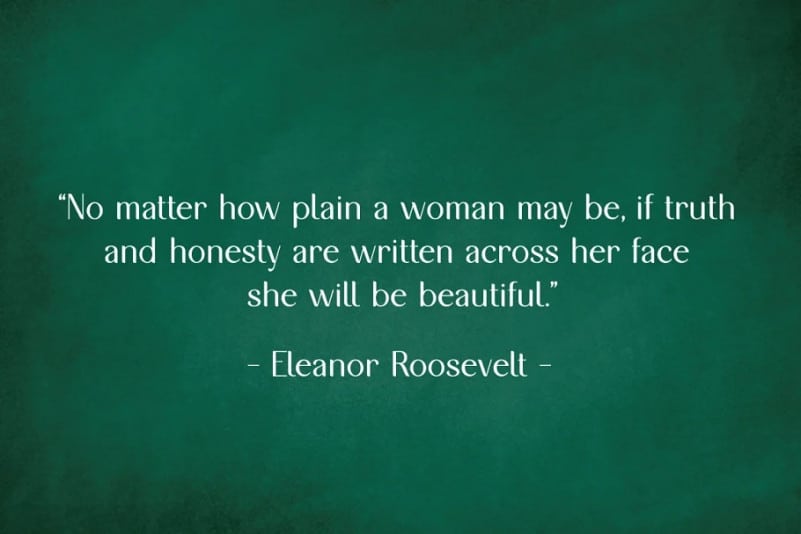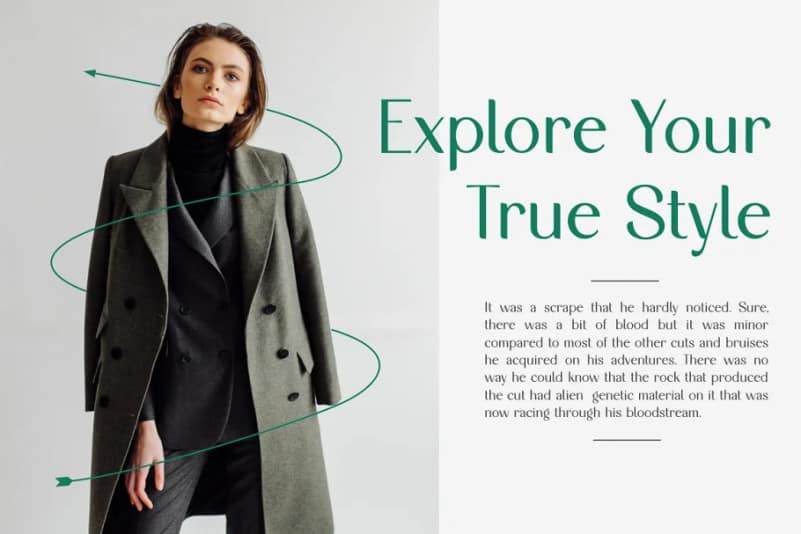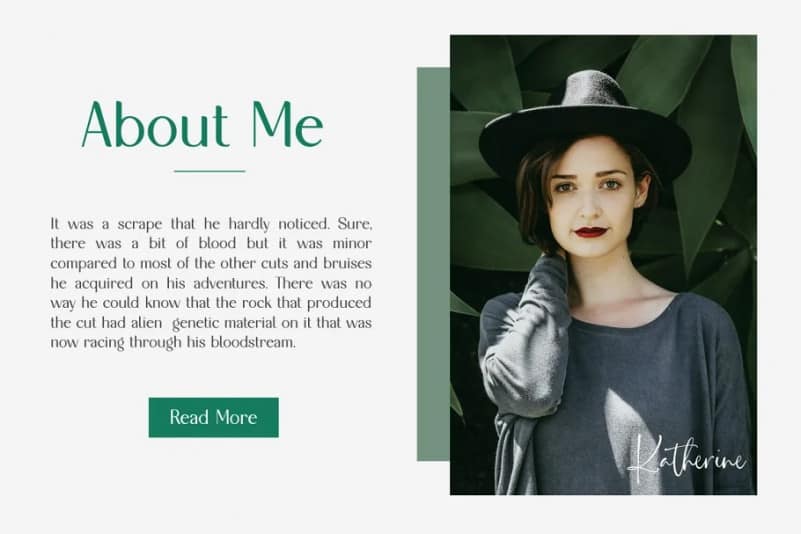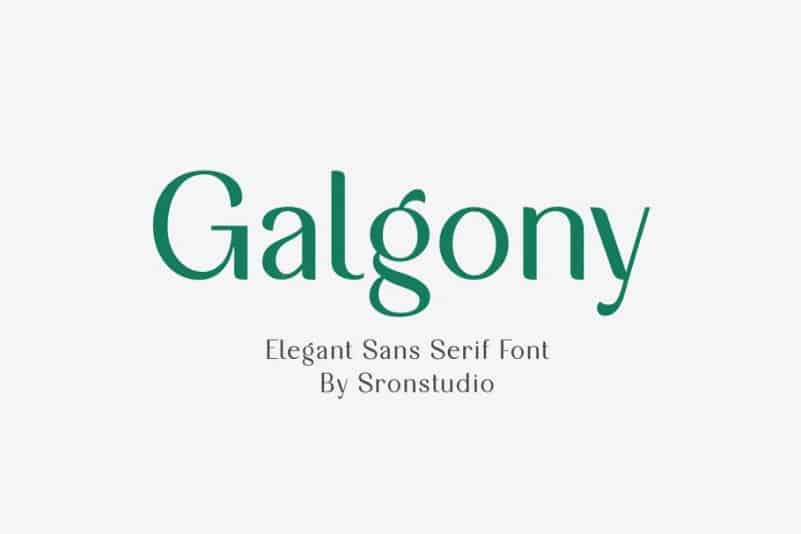
Galgony Sans Serif Font
Galgony Sans Serif Font is a beautiful and clean sans serif font. It’s designed and shared by Sronstudio. A minimal contrast look that has been synonymous with fashion for decades. This font perfect for branding, invitation, stationery, wedding designs, social media posts, advertisements, product packaging, product designs, label, photography, watermark, special events, and more.